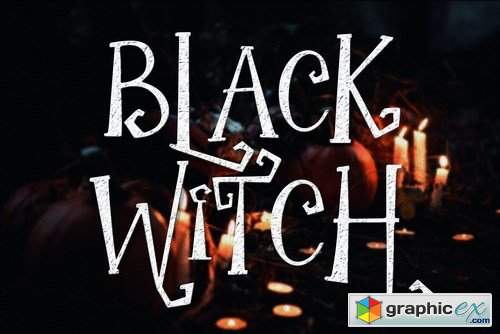
The Witch - Spooky Font
The Witch, Spooky Font Great choice for your Fun project, merchandise, posters, card, party, cutting project, quotes, and any kind of crafting on your Holiday moment!